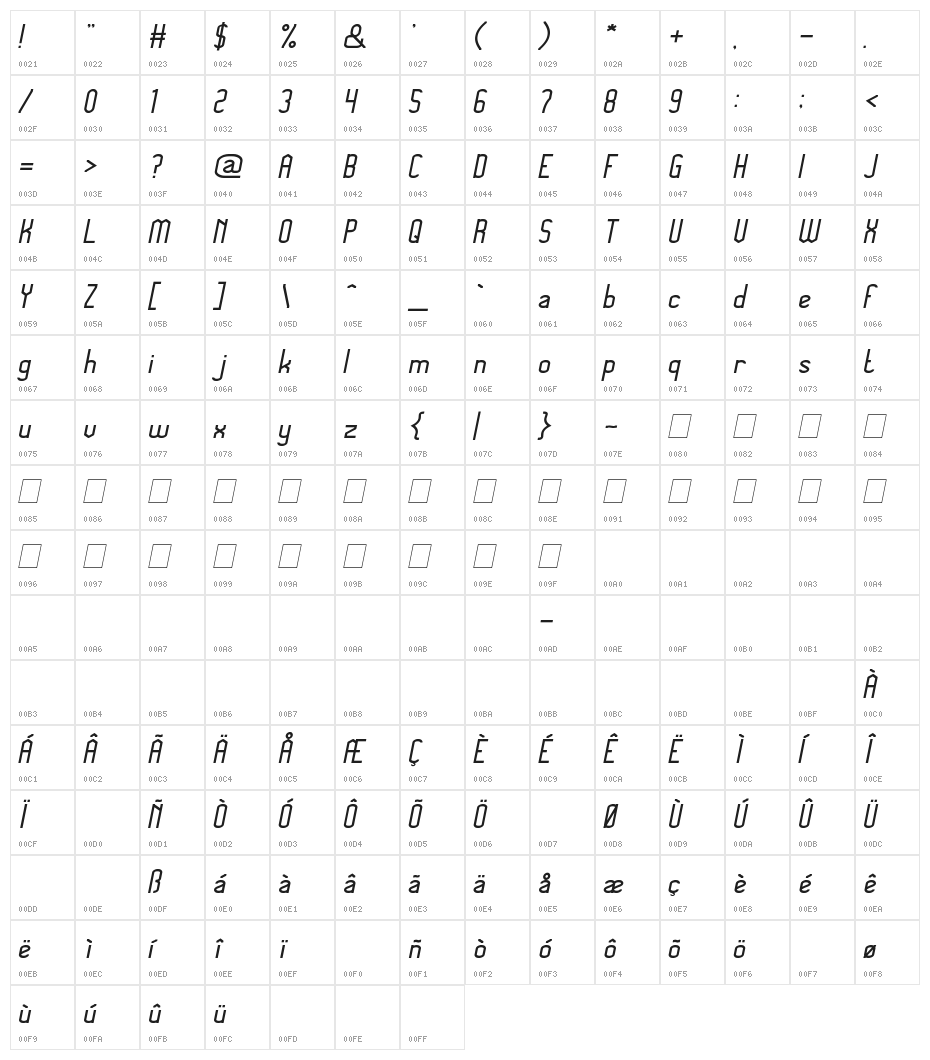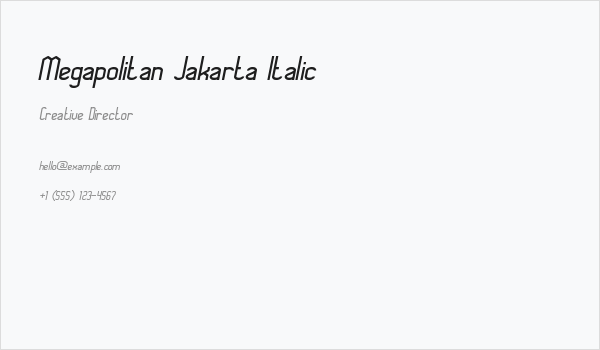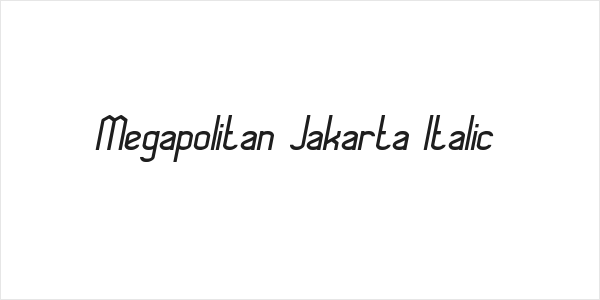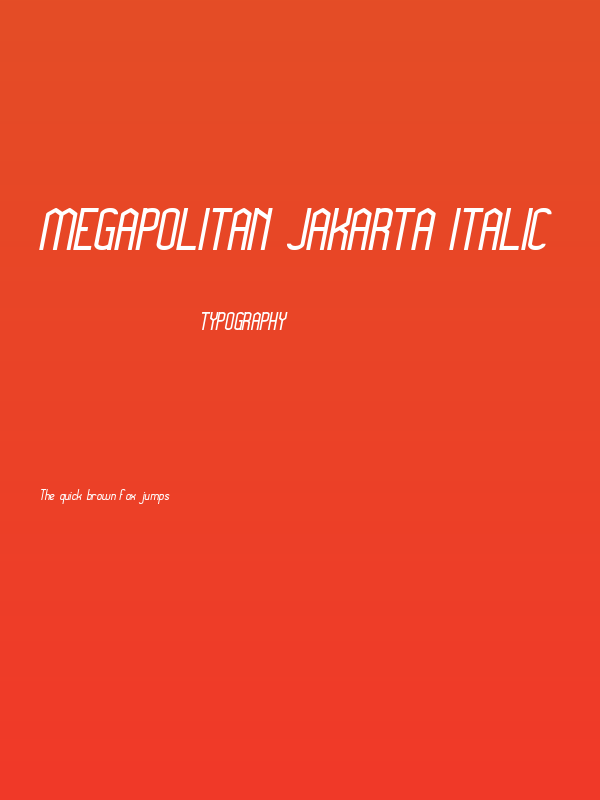
Megapolitan Jakarta Italic Font
Megapolitan Jakarta Italic Description
This font features a modern, italicized style with a distinct geometric structure. The uppercase letters are tall and narrow, with sharp angles and a consistent slant that gives a sense of motion and dynamism. The lowercase letters maintain the same slant, offering a cohesive look throughout the typeface. Numbers are designed with similar angular features, ensuring readability and style. The special characters are crafted to match the overall aesthetic, making this font versatile for various design needs. Its unique style is suitable for projects that require a contemporary and energetic feel.
Proposed ProjectsIdeal for branding, advertising, and editorial design projects that require a modern and energetic look.